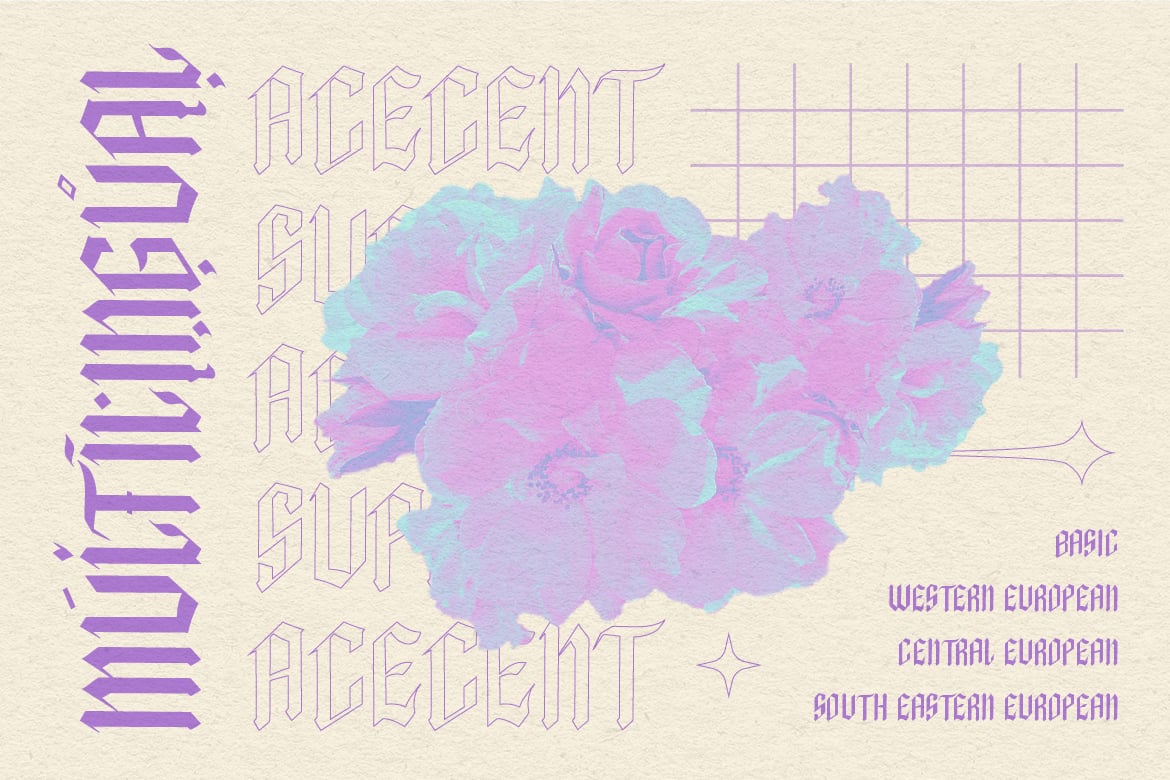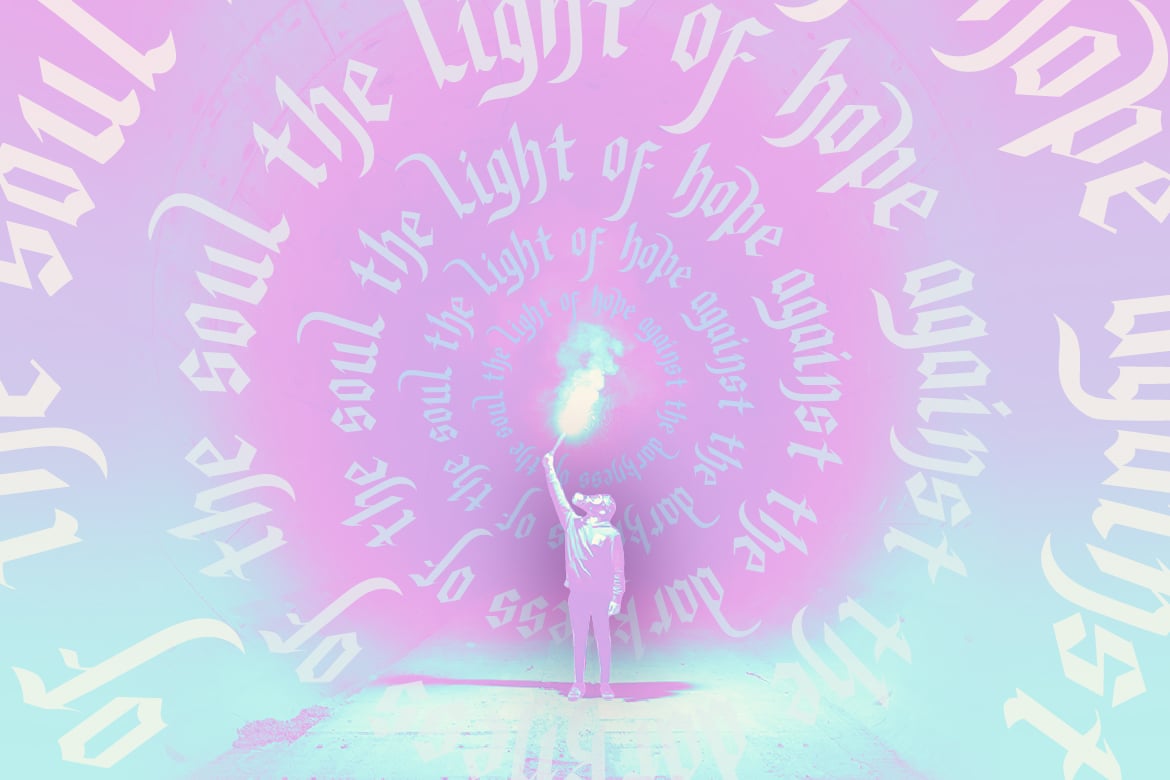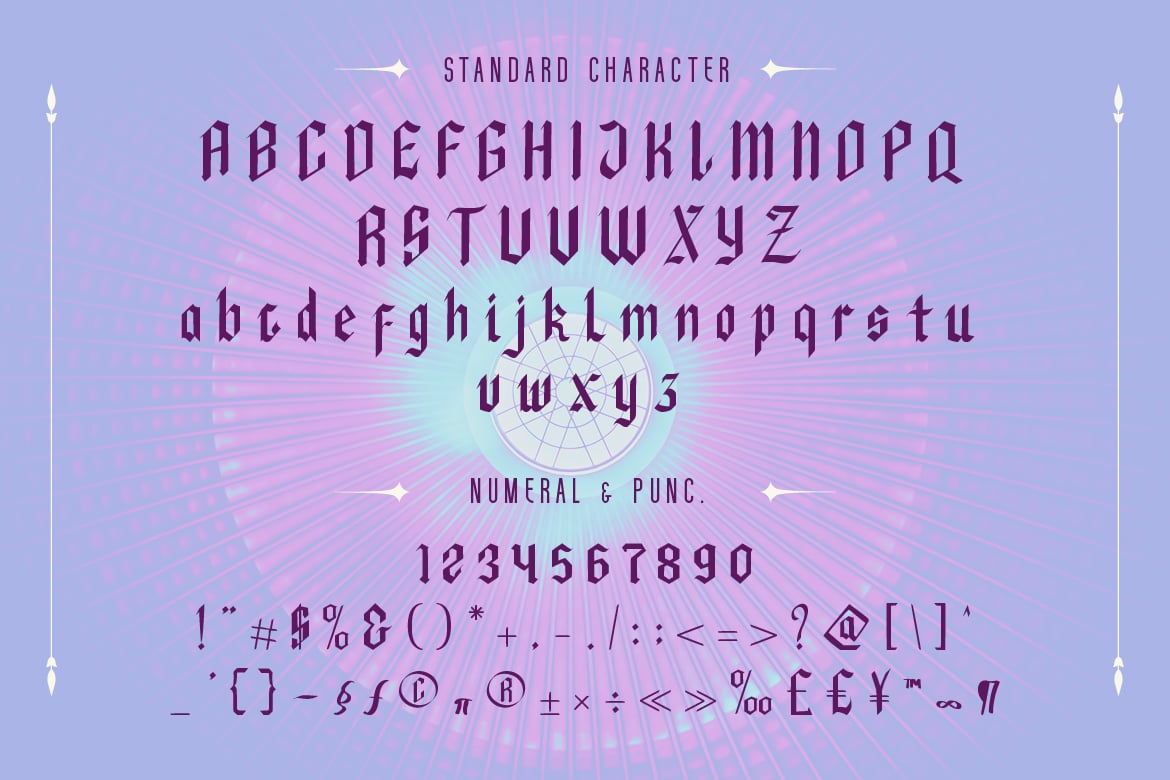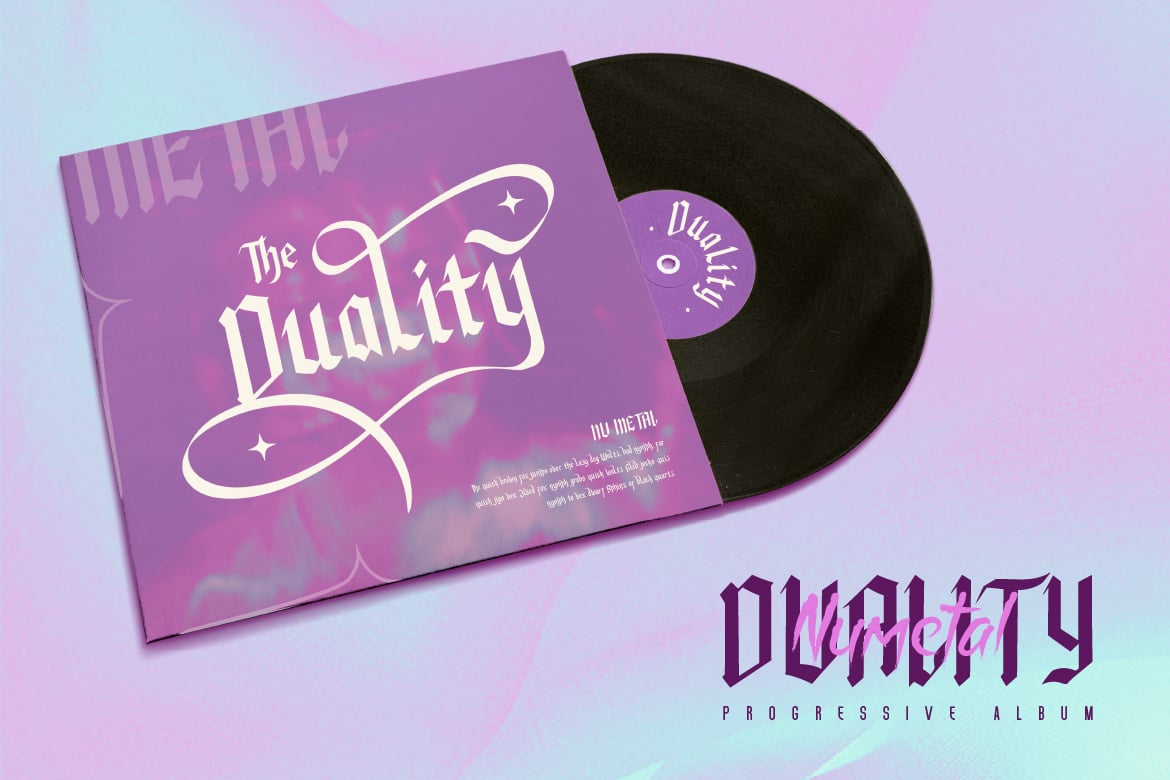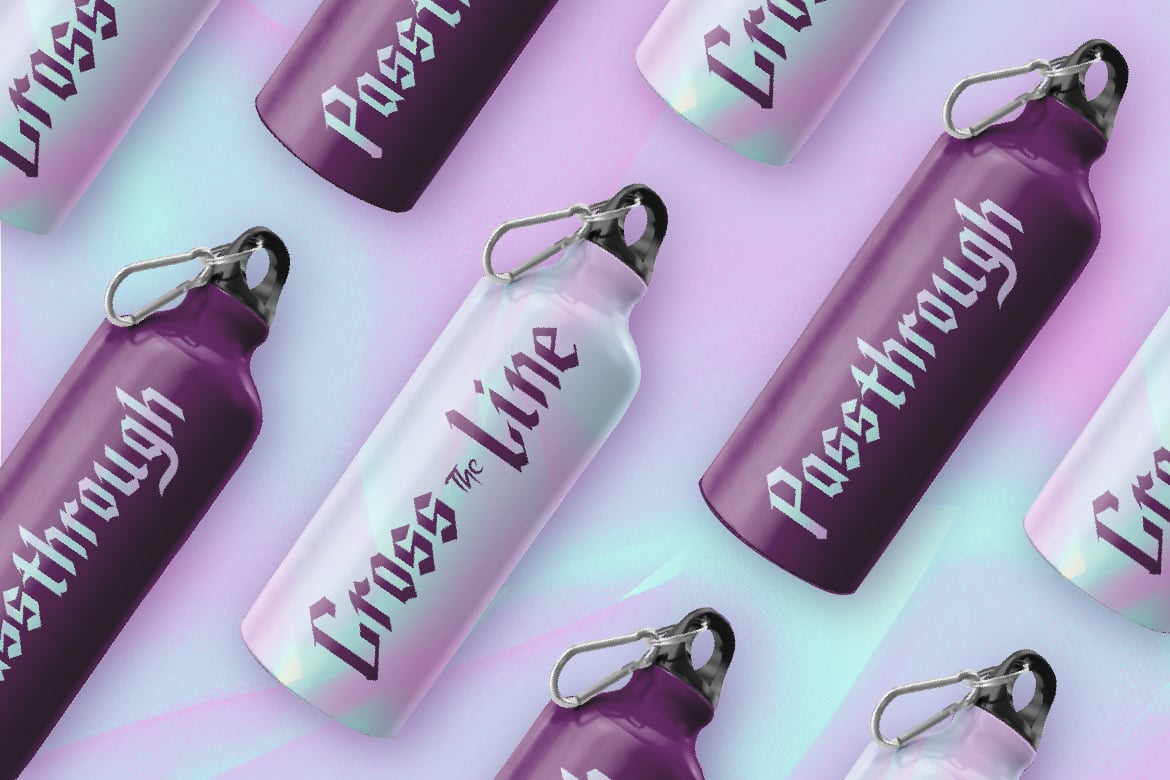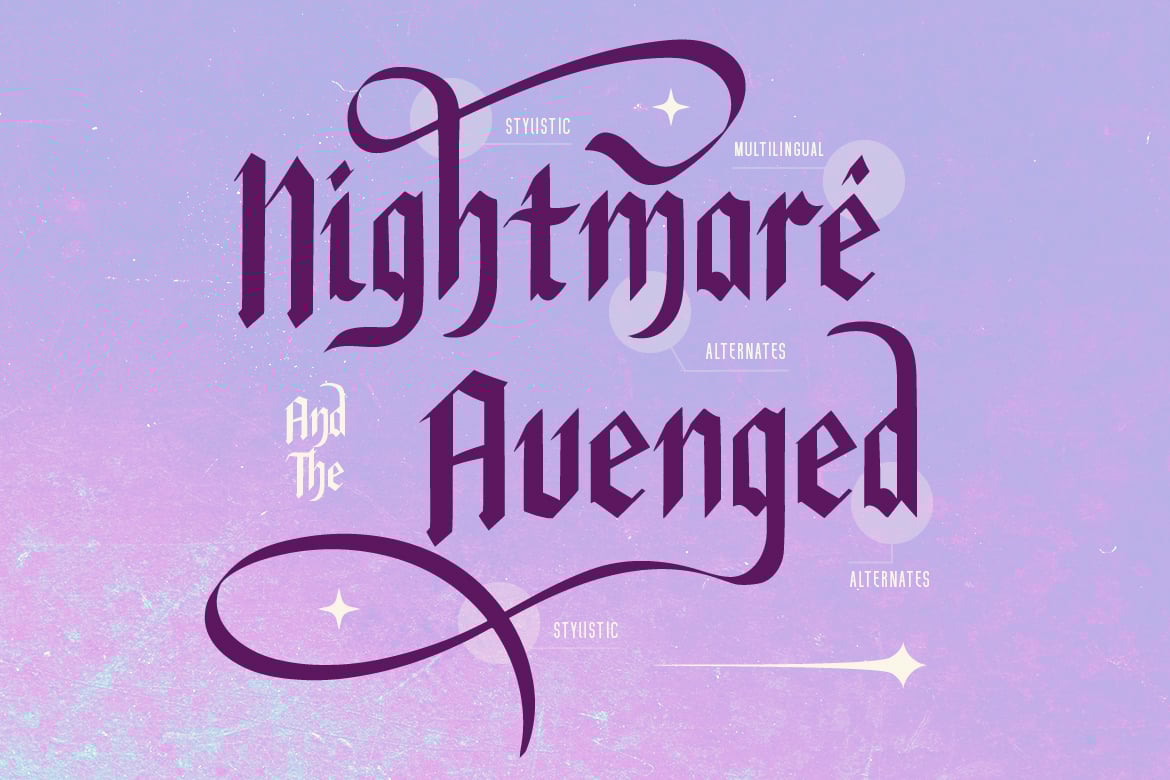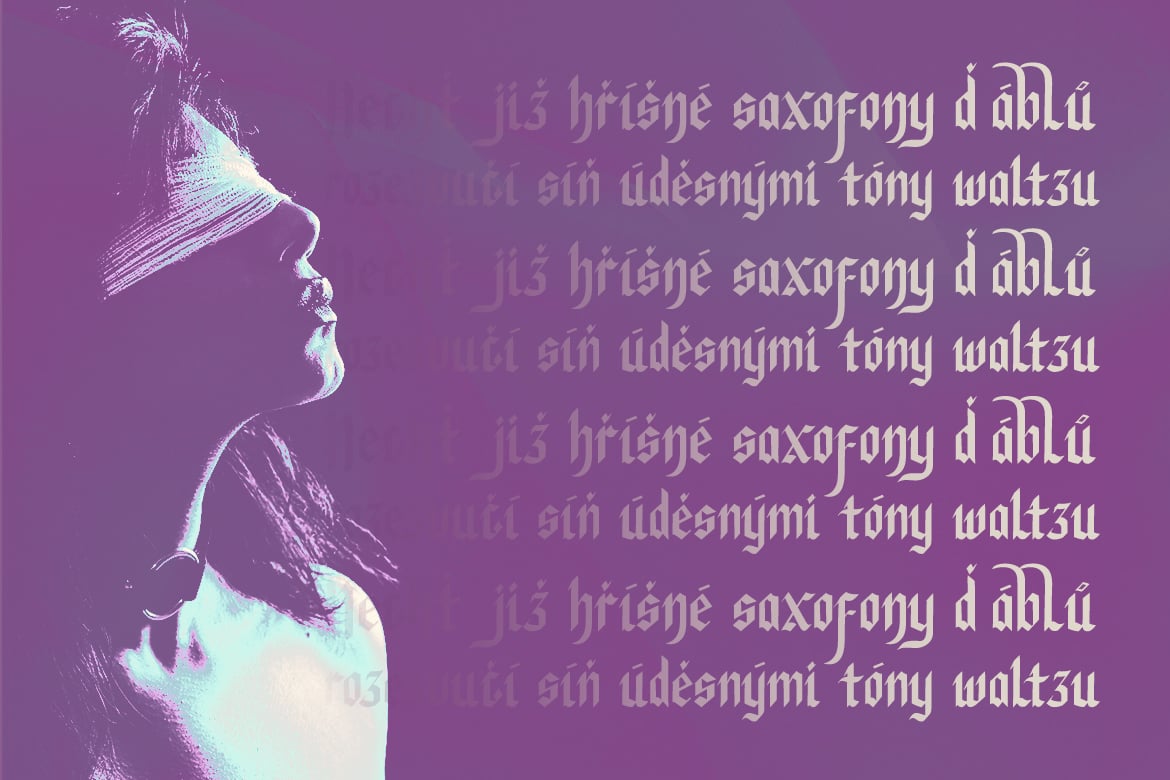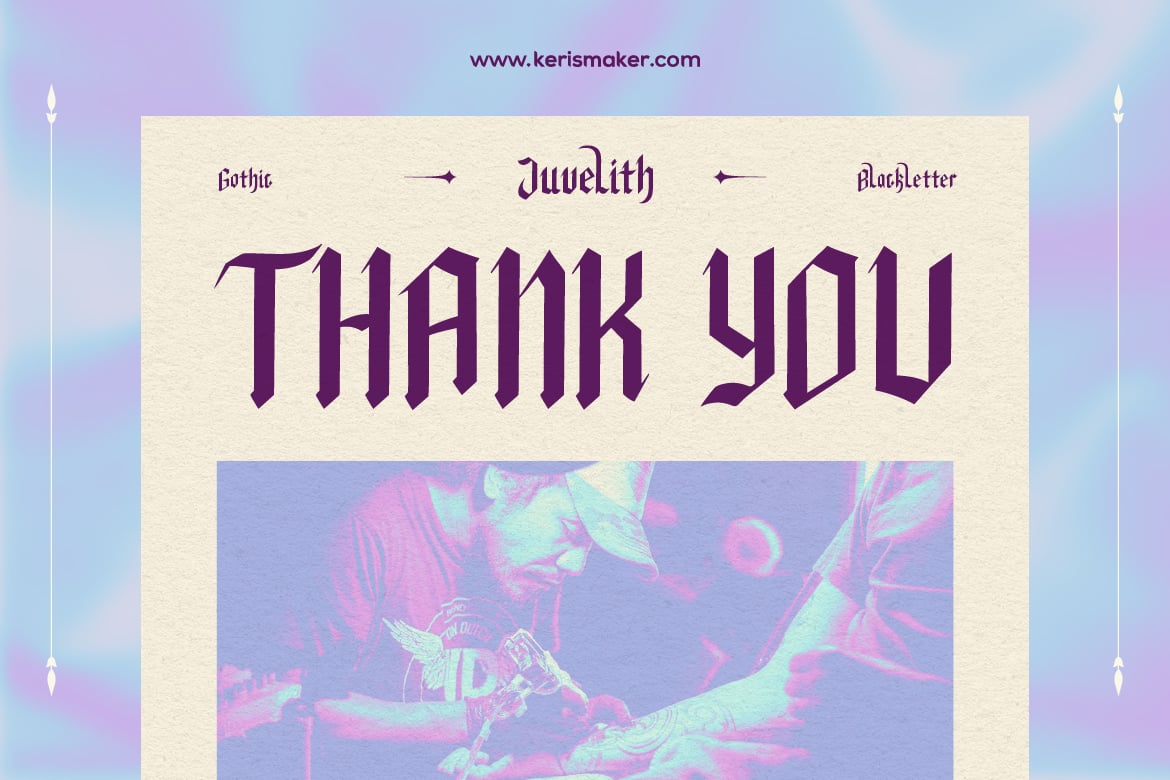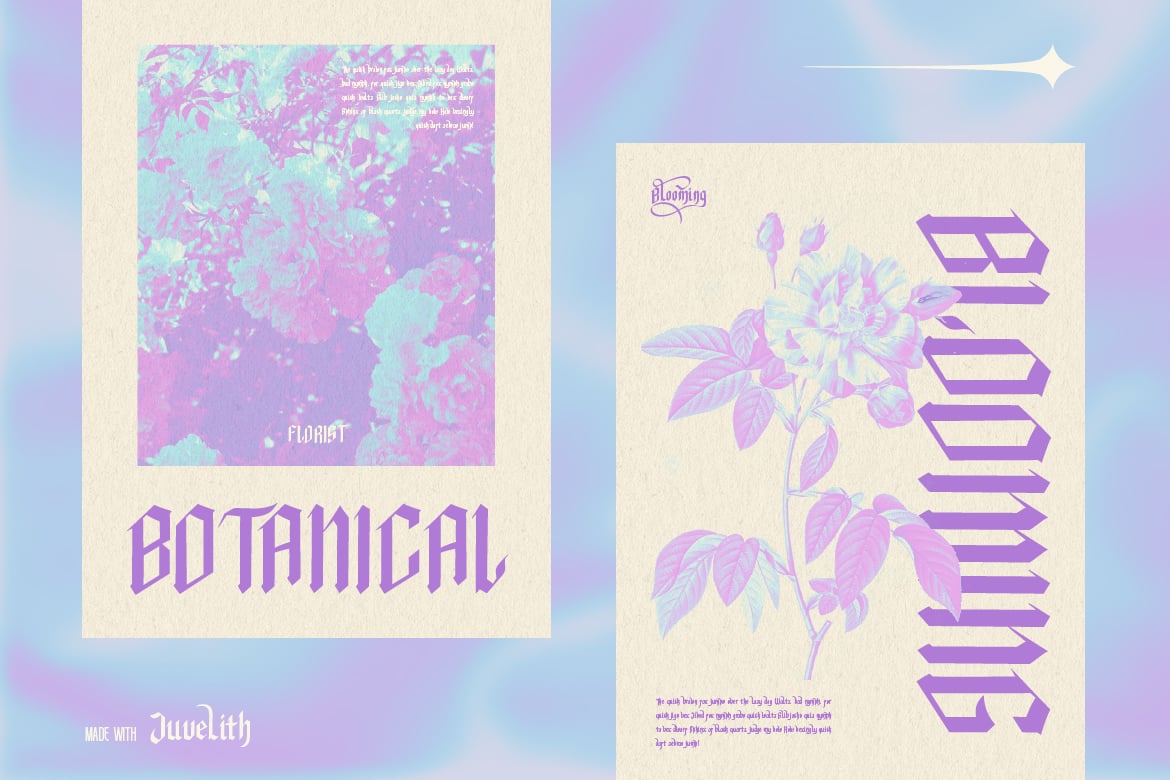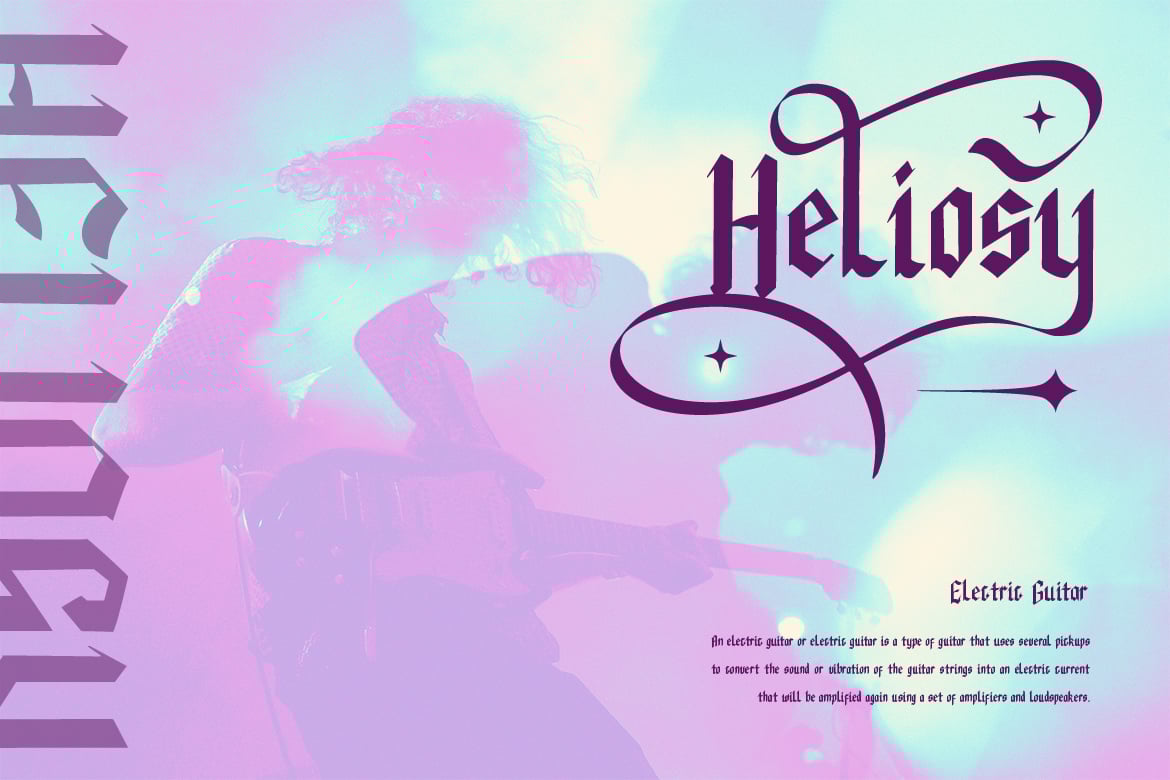
Juvelith Font
Proudly present Juvelith a modern black letter font inspired by contemporary design and calls back to Old English Gothic Scriptures. This font is good for logo design, Social media, Movie Titles, Books Titles, short text even long text letters, and good for your secondary text font with sans or serif.
- Standard Uppercase & Lowercase
- Multilingual : ä ö ü Ä Ö Ü ß ¿ ¡
- Alternate & Ligature